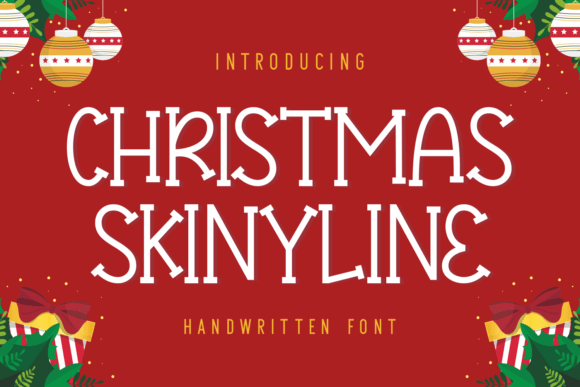
Introducing Christmas Skinyline Font: Add a Touch of Whimsy to Your Designs
Are you looking for a font that can add a dash of fun and playfulness to your designs? Look no further than the Christmas Skinyline Font! This quirky and whimsical serif font is perfect for making your branding, advertisements, logos, or creative projects more appealing and engaging. With its cute characters and unique style, Christmas Skinyline Font is sure to capture the attention of your audience and leave a lasting impression.
What Makes Christmas Skinyline Font So Special?
Christmas Skinyline Font is a one-of-a-kind font that boasts a range of features that make it perfect for designers and crafters. Here are just a few of the things that set it apart:
- Quirky and Whimsical Design: Christmas Skinyline Font features a unique and playful design that is sure to add a touch of whimsy to your designs. Its cute characters and serif style make it perfect for creating fun and engaging content.
- Perfect for Branding and Advertising: With its bold and eye-catching design, Christmas Skinyline Font is perfect for use in branding and advertising. Whether you’re creating a logo, brochure, or social media post, this font is sure to grab the attention of your audience.
- Versatile and Easy to Use: Christmas Skinyline Font is incredibly versatile and easy to use. It can be used for a wide range of projects, from crafting and scrapbooking to digital design and marketing.
How to Use Christmas Skinyline Font in Your Designs
Using Christmas Skinyline Font in your designs is easy! Here are a few tips to get you started:
- Pair it with Other Fonts: Christmas Skinyline Font pairs perfectly with other fonts, such as sans-serif fonts or script fonts. Experiment with different combinations to find the perfect look for your project.
- Use it for Headings and Titles: Christmas Skinyline Font is perfect for use in headings and titles. Its bold and eye-catching design makes it perfect for grabbing the attention of your audience.
- Add it to Your Digital Designs: Christmas Skinyline Font can be used in a wide range of digital designs, from social media posts to website headers. It’s a great way to add a touch of personality to your online presence.
Why Designers and Crafters Love Christmas Skinyline Font
Designers and crafters love Christmas Skinyline Font for a range of reasons. Here are just a few:
- Unique and Eye-Catching Design: Christmas Skinyline Font features a unique and eye-catching design that is sure to stand out from the crowd.
- Easy to Use: Christmas Skinyline Font is incredibly easy to use, even for those who are new to design.
- Perfect for a Wide Range of Projects: Christmas Skinyline Font can be used for a wide range of projects, from crafting and scrapbooking to digital design and marketing.
If you’re looking for a font that can add a touch of whimsy and fun to your designs, look no further than Christmas Skinyline Font. With its quirky and whimsical design, cute characters, and versatility, this font is perfect for designers and crafters alike. Whether you’re creating branding, advertisements, logos, or creative projects, Christmas Skinyline Font is sure to make your content more appealing and engaging.